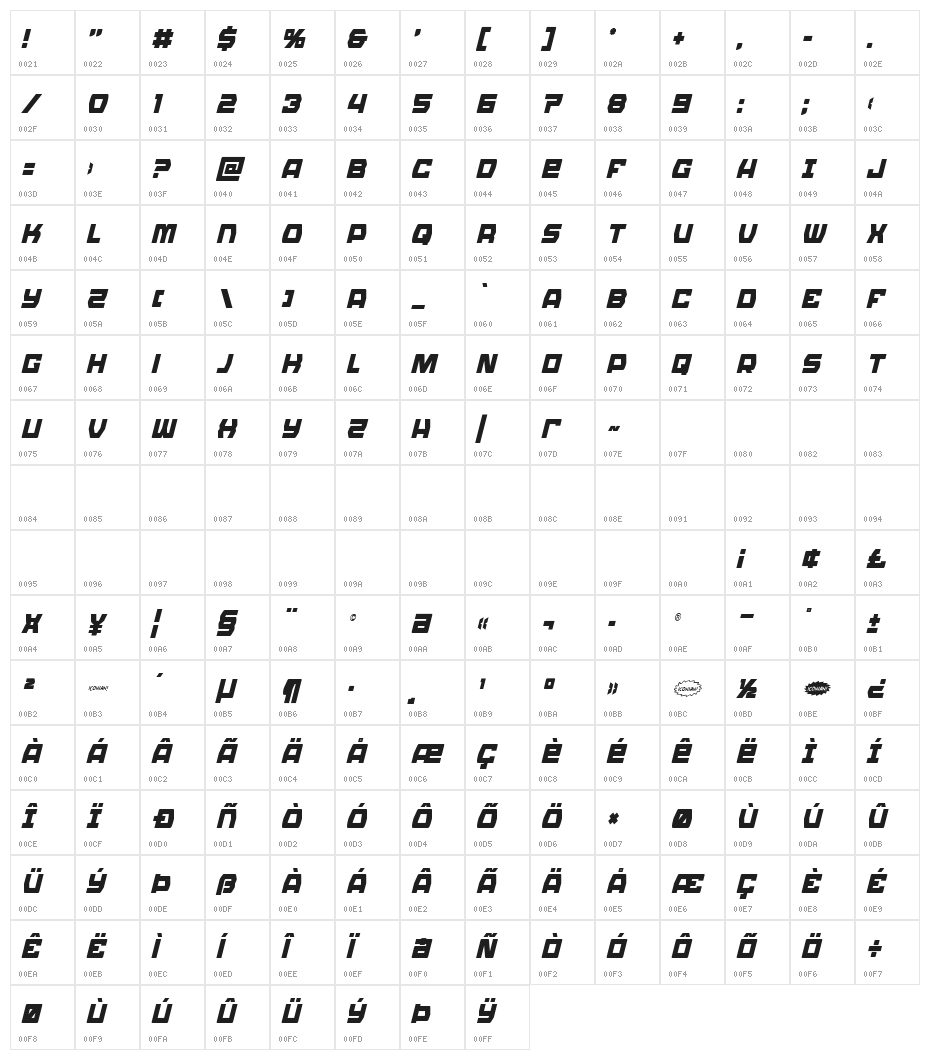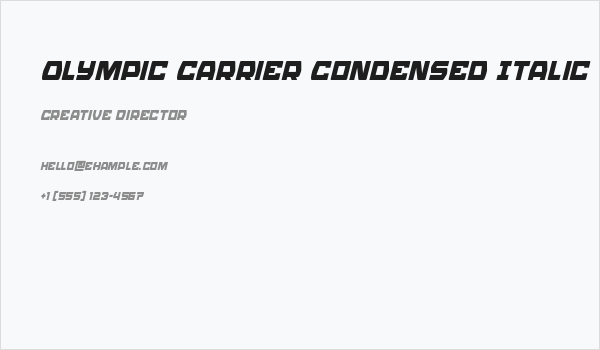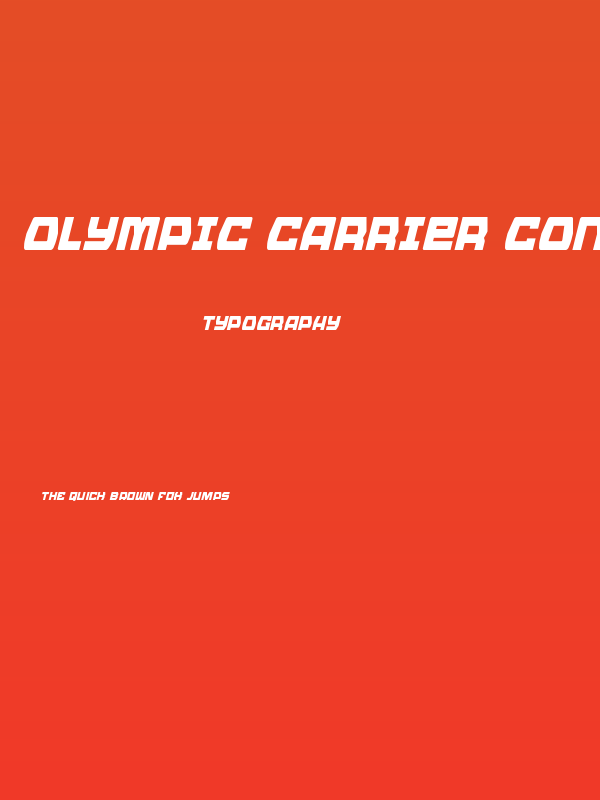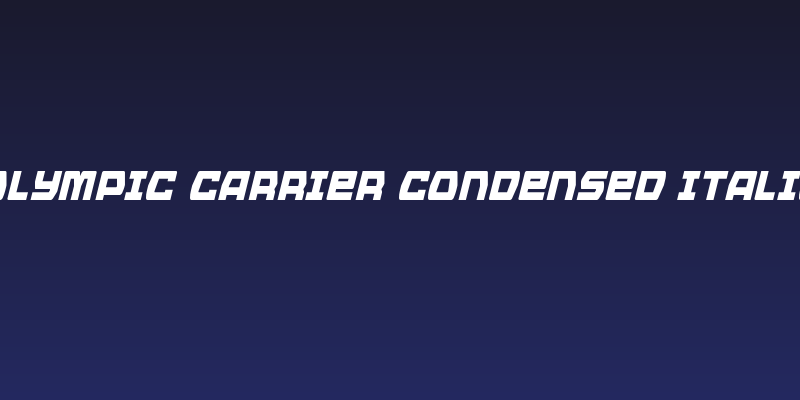
Olympic Carrier Condensed Italic Font
Olympic Carrier Condensed Italic Description
This font features a bold and dynamic style with a condensed and italicized form. The characters are designed with sharp angles and a forward-leaning stance, giving a sense of motion and speed. The uppercase letters are prominent and impactful, while the lowercase letters maintain a consistent style. The numerals are equally bold, ensuring readability and uniformity across different uses. The special characters are well-integrated, maintaining the overall aesthetic of the font. This typeface is ideal for projects that require a strong, modern, and energetic look.
| Proposed Projects | Ideal for sports branding, dynamic posters, automotive advertising, and modern logo design. |